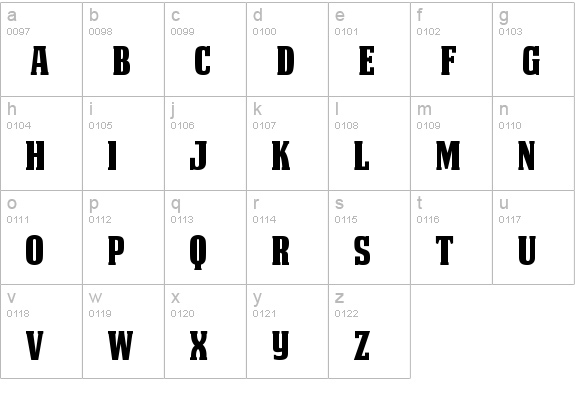
DEATHE MAACH NCV Font Details
DEATHE MAACH NCV font is a stunning and captivating typeface that effortlessly combines elegance with a touch of edginess. Its unique and intricate letterforms are meticulously crafted to create a visually striking and powerful impact. With its sharp edges and bold strokes, DEATHE MAACH NCV font exudes a sense of strength and confidence, making it the perfect choice for projects that require a bold and impactful statement. Whether you're designing a logo, a poster, or a headline, this font will grab attention and leave a lasting impression. One of the most remarkable features of DEATHE MAACH NCV font is that it is freely available to download at FontsMarket.com. This means that you can easily access and use this exceptional font for your personal and commercial projects without any hassle or cost. Its availability as a free download allows you to explore and unleash your creativity without any limitations. The versatility of DEATHE MAACH NCV font is another aspect that sets it apart. It can effortlessly adapt to various design styles and themes, making it a reliable choice for a wide range of projects. Whether you're aiming for a modern and sleek look, a vintage-inspired design, or something completely unique, this font will seamlessly blend in and enhance your overall composition. In addition to its visual appeal, DEATHE MAACH NCV font also offers excellent legibility, ensuring that your message is conveyed effectively. Each character is carefully designed to maintain readability, even at smaller sizes or when used in lengthy paragraphs. Embrace the power and elegance of DEATHE MAACH NCV font for your next creative endeavor. Download it for free at FontsMarket.com and unlock a world of possibilities in your design projects. Let this font be the driving force behind your captivating visuals, leaving a lasting impression on your audience.